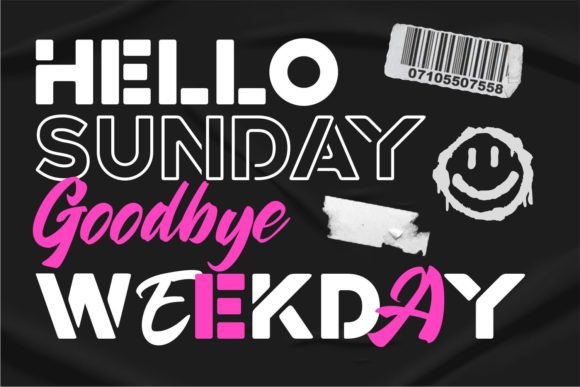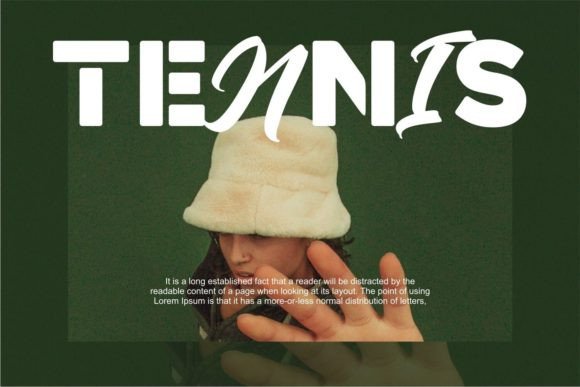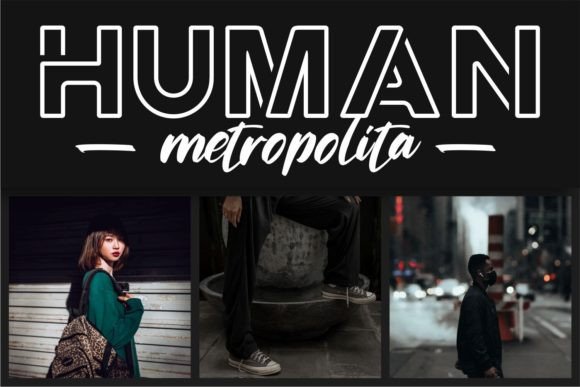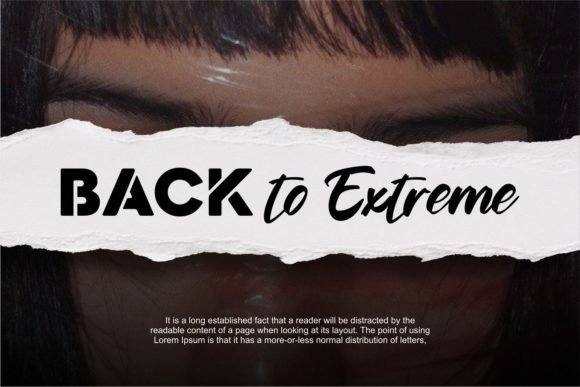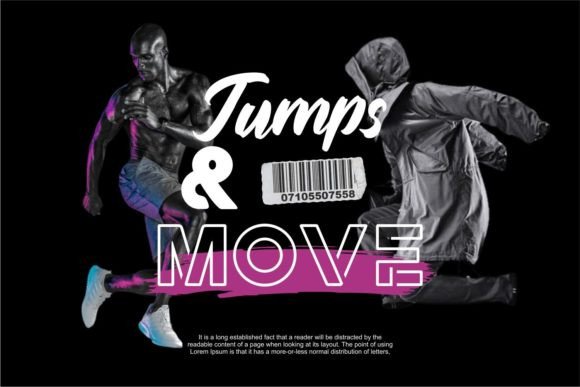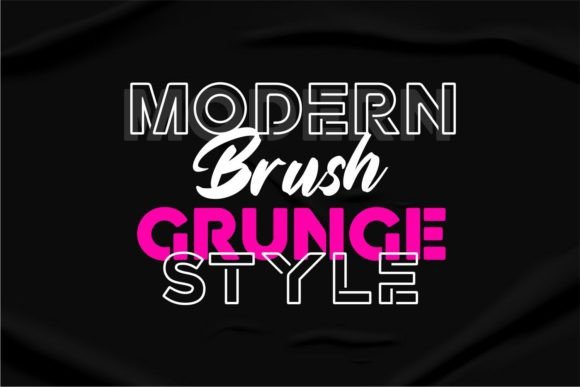
Unlock Endless Possibilities with Helva Ventura Font
Have you ever stared at a blank canvas, feeling the rush of adrenaline as your imagination runs wild? This is the moment when creativity knows no bounds, and the possibilities are endless. As designers, we crave the freedom to express ourselves without limitations, and that’s exactly what the Helva Ventura Font offers.
This unique blend of sans type and script brush fonts is designed to inspire boundless creativity and design flexibility. With Helva Ventura Font, you can seamlessly adapt to various themes and projects, making it the perfect choice for designers who want to push the boundaries of style and expression.
Whether you’re working on sports events, music posters, movie posters, or social media campaigns, Helva Ventura Font empowers you to explore new styles and express your creativity without limits. Its versatility and creative freedom make it an invaluable tool for designers who want to stand out and elevate their projects.
Helva Ventura Font Key Features
- Font Family: Helva Ventura, a modern sans-serif font designed for readability and versatility.
- Font Size: Available in 8 different weights, ranging from Hairline (100) to Black (900), to cater to diverse design needs.
- Character Set: Supports a wide range of languages, including Latin, Cyrillic, and Greek alphabets, making it suitable for global audiences.
- Resolution: Designed for high-resolution displays, with crisp and clear typography at resolutions up to 300 DPI.
- Unique Characteristics: Features a unique blend of geometric and organic shapes, resulting in a clean and modern aesthetic.
Designer Review: Helva Ventura Font
Overall, I have mixed feelings about the Helva Ventura Font. While it has some great qualities, there are also some areas where it falls short. Let’s dive in and explore both the positives and negatives.
- Unique design: Helva Ventura Font has a distinctive, hand-drawn feel that sets it apart from more traditional sans-serif fonts.
- Legibility: The font is highly legible, even at small sizes, making it a great choice for body text and other applications where readability is key.
- Expressive: The font’s expressive nature makes it perfect for creative projects, such as branding and advertising.
- Limited font weights: The Helva Ventura Font only comes in a few font weights, which can limit its versatility in certain applications.
- No italics: The font does not include italic versions, which can make it difficult to create emphasis or add visual interest.
- Not ideal for headlines: While the font is great for body text, it may not be the best choice for headlines due to its relatively plain design.
While the Helva Ventura Font has some great qualities, its limitations hold it back from being a truly top-notch font. If you’re looking for a unique, highly legible font for body text or creative projects, Helva Ventura might be a good choice. However, if you need a font with more flexibility or a wider range of font weights, you may want to consider other options.
Tips for Getting the Most Out of Helva Ventura Font
To get the most out of Helva Ventura Font, consider the following tips:
- Use it for titles and headings to add a touch of elegance.
- Pair it with other elegant fonts for a unique look.
Helva Ventura Font is commonly used for:
- Editorial and literary publications.
Yes, the Helva Ventura Font supports a wide range of Unicode characters, including Latin, Cyrillic, and Greek alphabets. This makes it an excellent choice for multilingual designs and projects.